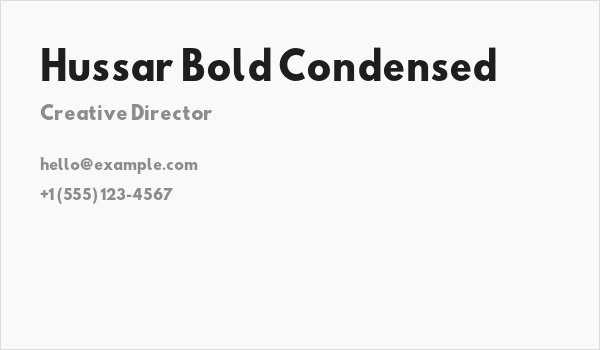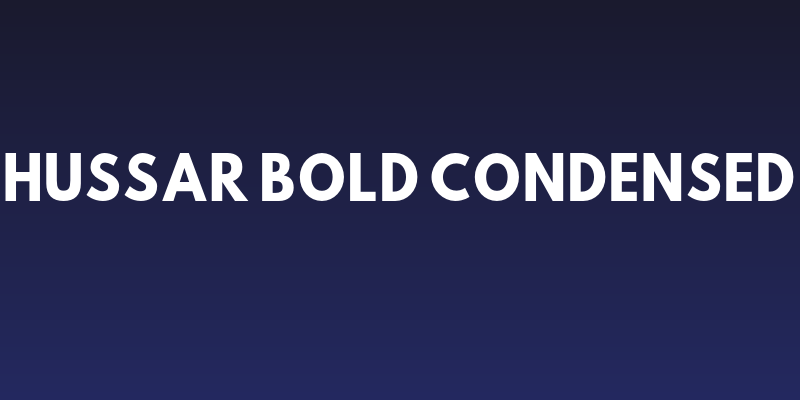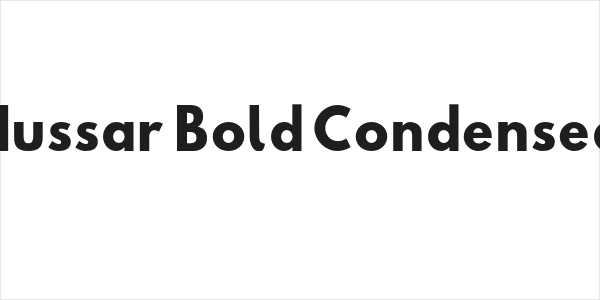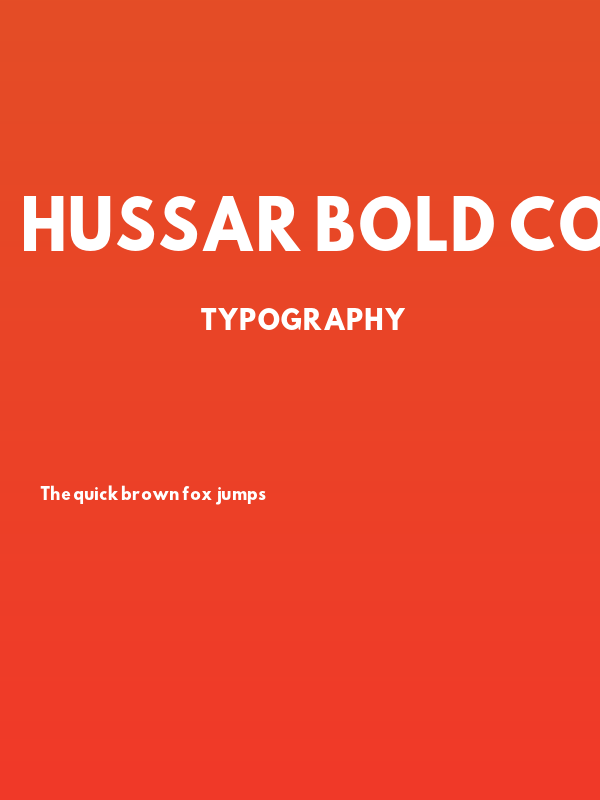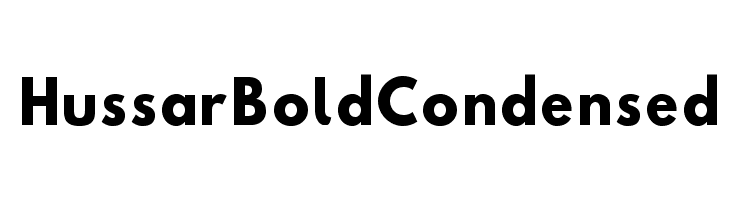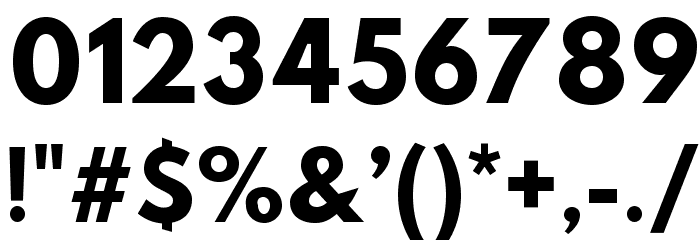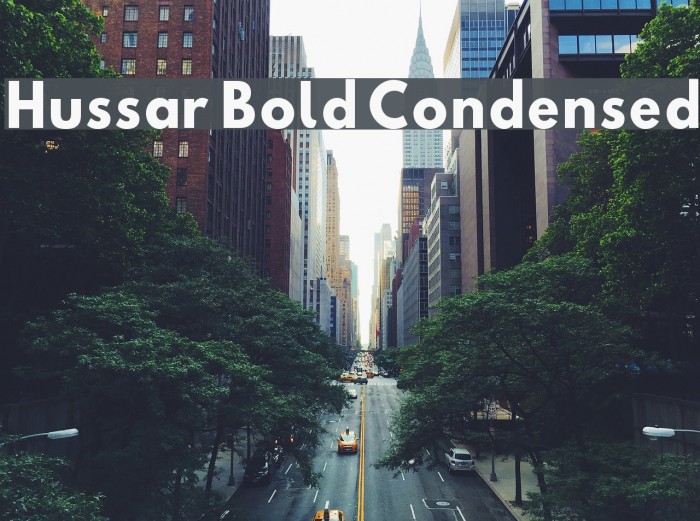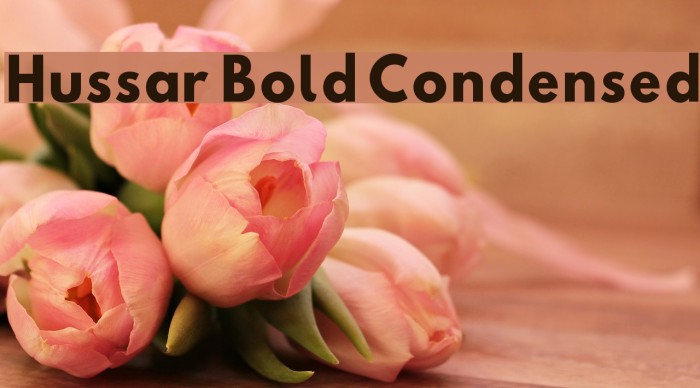
Hussar Bold Condensed Font
Hussar Bold Condensed Description
This font exhibits a bold and condensed style, characterized by strong, thick strokes and a compact design. The uppercase letters are robust and impactful, making them ideal for attention-grabbing headlines. The lowercase letters maintain a consistent weight, ensuring readability while preserving the bold aesthetic. The numerals are clear and well-defined, matching the overall boldness of the font. Special characters are designed with the same thickness, providing a cohesive look across all glyphs. The condensed nature of the font allows for efficient use of space, making it suitable for various design applications where space is a premium.
| Proposed Projects | Ideal for posters, headlines, branding materials, and any design requiring a strong visual impact. |